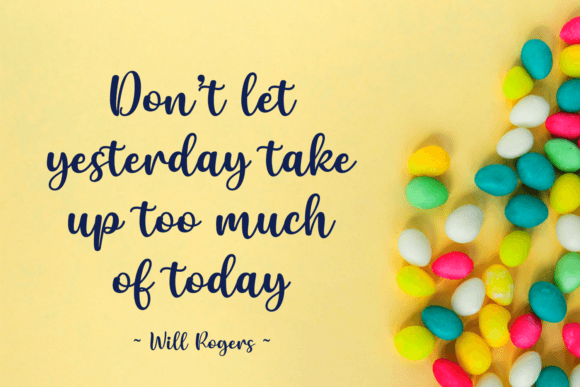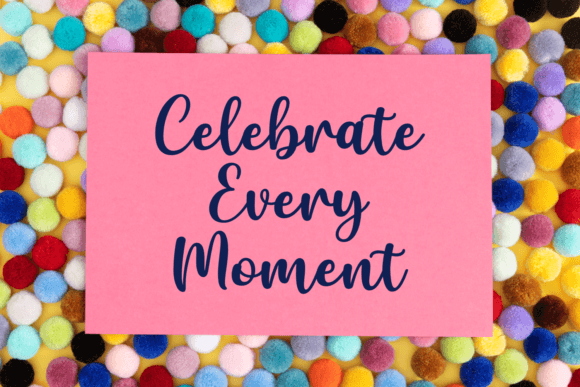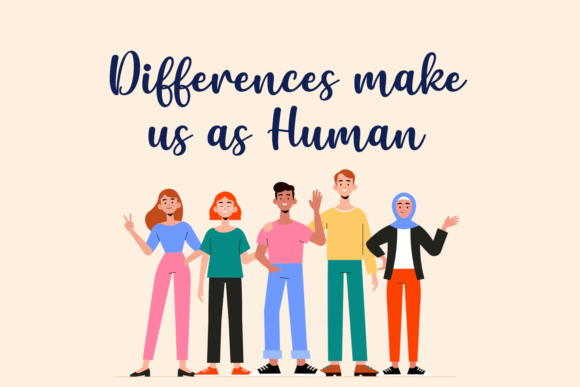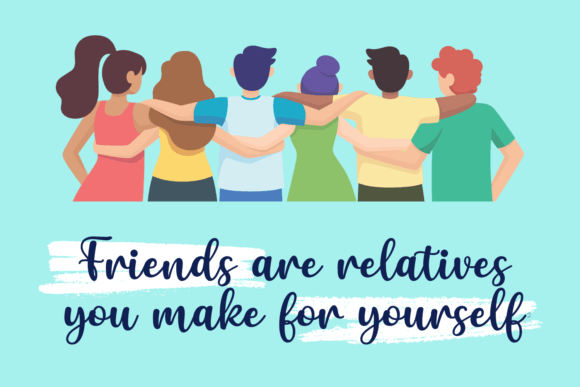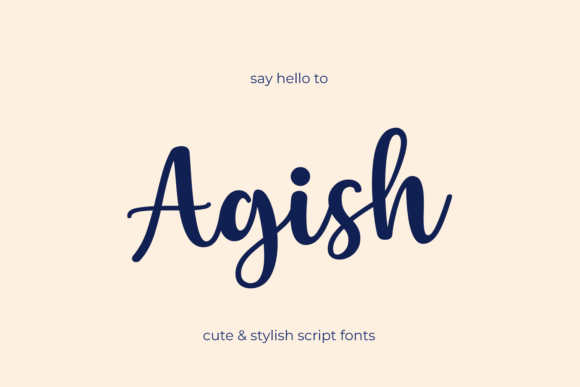
Discover the Charm of Agish Font: A Cute and Stylish Script Font
Are you looking for a font that adds a touch of playfulness and charm to your projects? Look no further than Agish Font, a beautiful script font that combines elegance and sophistication with a cute and stylish design. In this article, we’ll explore the features and benefits of Agish Font, and why it’s the perfect choice for designers and crafters looking to add a personal touch to their work.
The Characteristics of Agish Font
Agish Font is a script font that boasts smooth and flowing lines, creating a sense of elegance and sophistication. Its unique design makes it perfect for projects that require a touch of playfulness and charm. The font’s cute and stylish design adds an element of fun and creativity, making it ideal for a wide range of applications, from branding and greeting cards to packaging and advertising.
What Makes Agish Font So Special?
So, what sets Agish Font apart from other fonts? Here are just a few reasons why designers and crafters love this font:
- Cute and Stylish Design: Agish Font has a unique and stylish design that adds a touch of playfulness and charm to any project.
- Smooth and Flowing Lines: The font’s smooth and flowing lines create a sense of elegance and sophistication, making it perfect for projects that require a high-end look.
- Versatile: Agish Font is versatile and can be used for a wide range of applications, from branding and greeting cards to packaging and advertising.
- Easy to Read: Despite its playful design, Agish Font is easy to read, making it perfect for body text and headlines.
Uses for Agish Font
Agish Font is perfect for a wide range of projects, including:
- Branding: Use Agish Font to create a unique and memorable brand identity that stands out from the crowd.
- Greeting Cards: Add a personal touch to your greeting cards with Agish Font’s cute and stylish design.
- Packaging: Use Agish Font to create eye-catching packaging that showcases your brand’s personality.
- Advertising: Agish Font is perfect for advertising campaigns that require a touch of playfulness and charm.
Tips for Using Agish Font
Here are a few tips for getting the most out of Agish Font:
- Use it as a Headline Font: Agish Font is perfect for headlines and titles, where its cute and stylish design can really shine.
- Pair it with a Sans-Serif Font: Pair Agish Font with a sans-serif font for body text to create a nice contrast and add visual interest.
- Experiment with Colors: Agish Font looks great in a variety of colors, so don’t be afraid to experiment and find the perfect hue for your project.
Agish Font is a beautiful script font that adds a touch of playfulness and charm to any project. Its smooth and flowing lines create a sense of elegance and sophistication, while its cute and stylish design adds an element of fun and creativity. Whether you’re a designer or crafter, Agish Font is the perfect choice for projects that require a font that is both cute and stylish. So why not give Agish Font a try and see the difference it can make in your work?